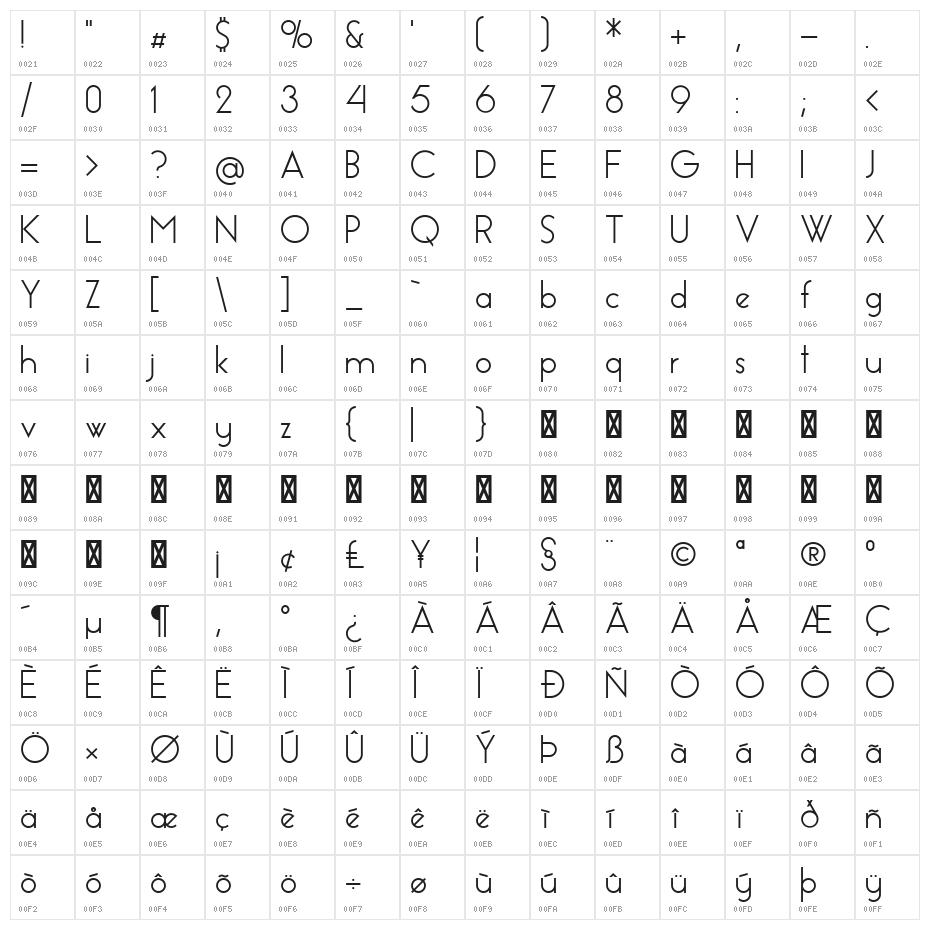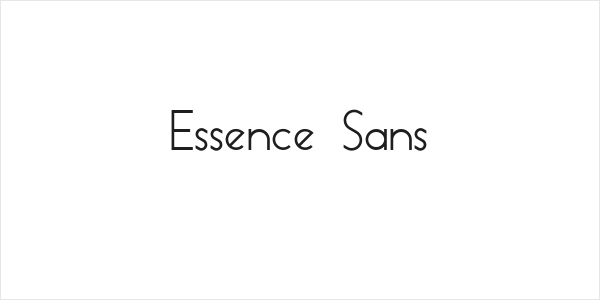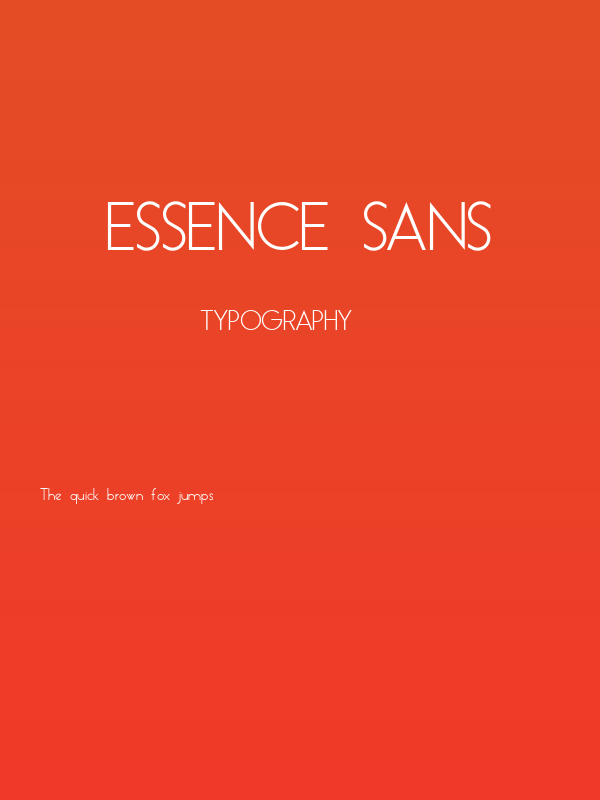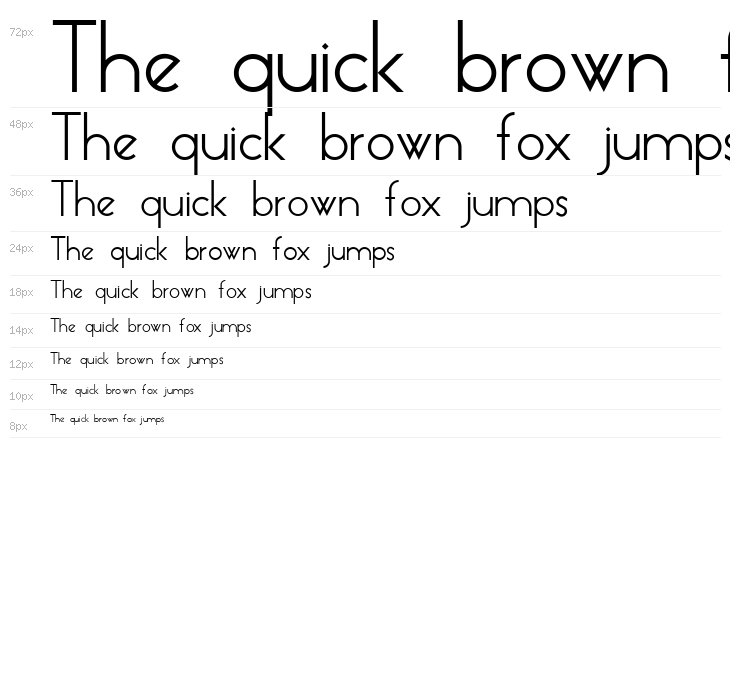
Essence Sans Font
Essence Sans Description
This font features a clean and modern sans-serif design with a geometric structure. The characters are evenly spaced, providing a balanced and harmonious appearance. The uppercase letters are tall and elegant, while the lowercase letters maintain a consistent height, contributing to a streamlined look. The numerals are clear and distinct, making them easy to read. Special characters are well-integrated, maintaining the overall aesthetic. The font's simplicity and clarity make it versatile for various applications, from digital to print media.